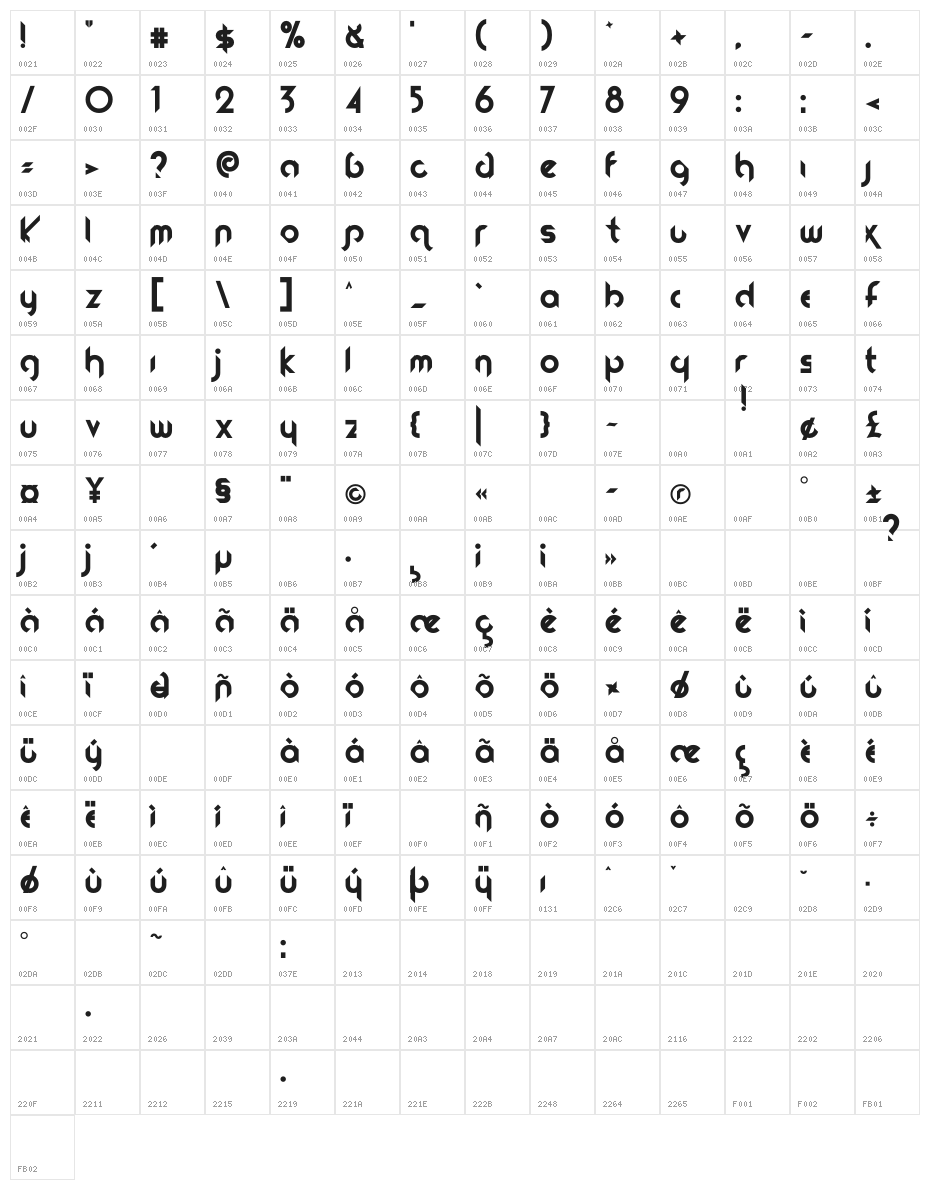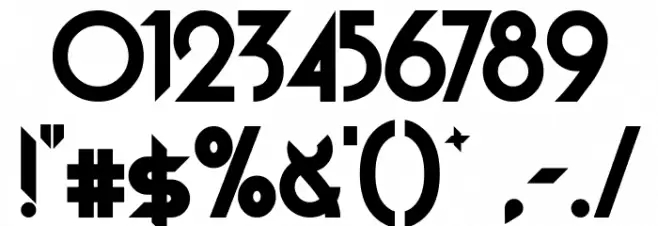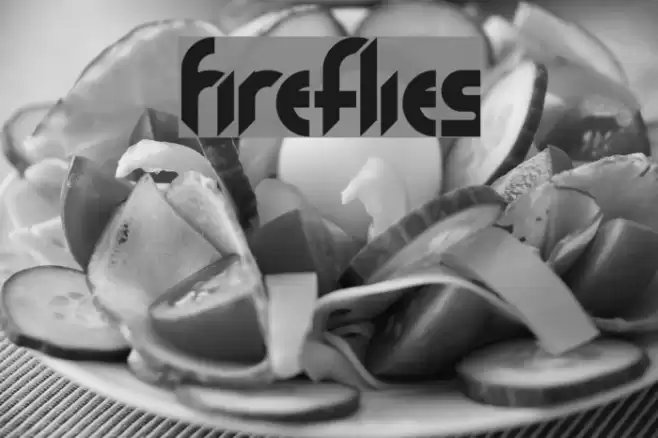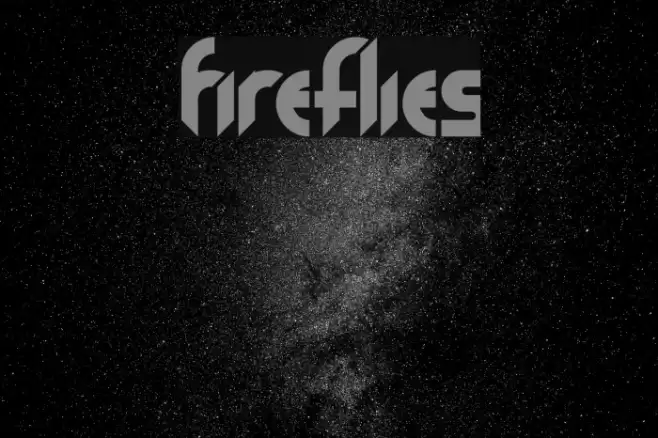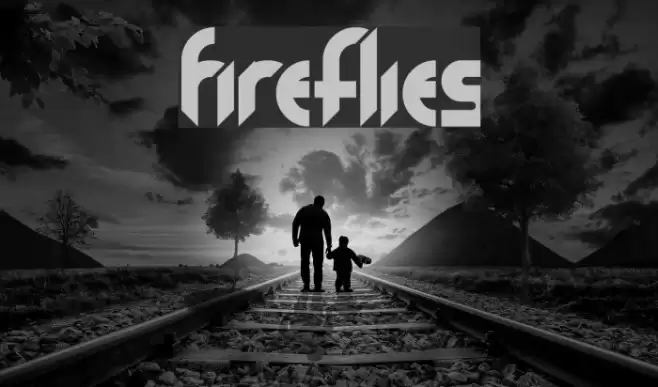
Fireflies Font
Fireflies Description
This font features a bold and geometric design with sharp angles and clean lines, creating a striking and modern appearance. The characters are crafted with a unique blend of curves and straight edges, giving it a futuristic and dynamic feel. The uppercase and lowercase letters maintain a consistent style, while the numerals and special characters complement the overall aesthetic. The font's boldness makes it highly legible and impactful, suitable for attention-grabbing designs. Its distinct style is ideal for projects that require a modern and edgy look.
| Proposed Projects | Ideal for branding, posters, headlines, and digital media that require a modern and bold aesthetic. |